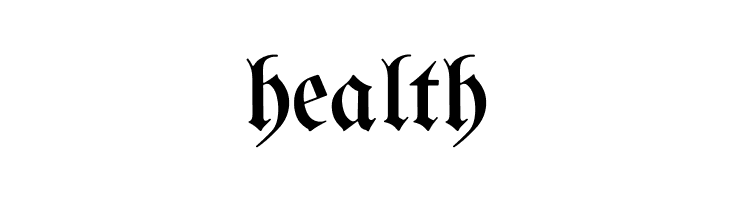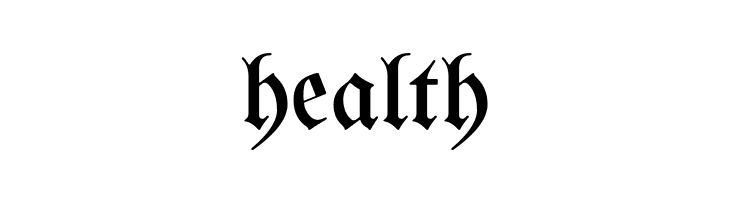
A traditional blackletter font with ornate, gothic letterforms.
A bold, ornate Blackletter font with a Gothic, medieval style.
A bold and ornate blackletter font with intricate details and a historical aesthetic.
A bold and intricate Blackletter font with high contrast and ornate details.
A traditional blackletter font with ornate, dramatic letterforms.
A traditional blackletter font with intricate, ornate letterforms.
A traditional blackletter font with ornate, medieval-inspired letterforms.
A traditional blackletter font with intricate detailing and historical elegance.